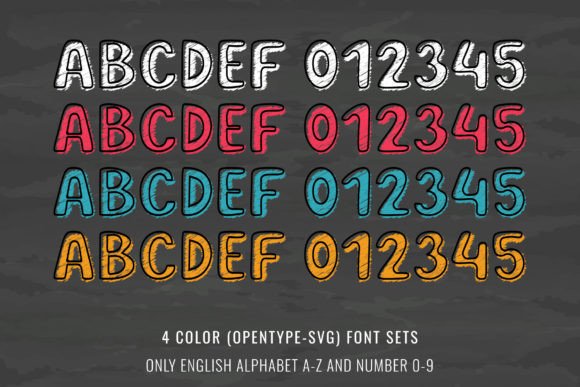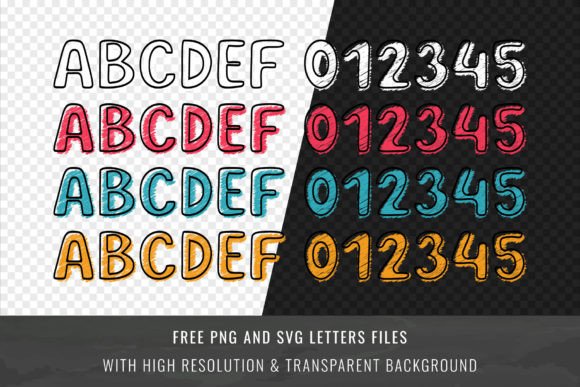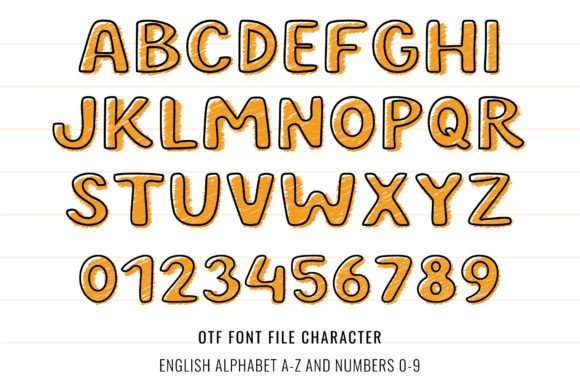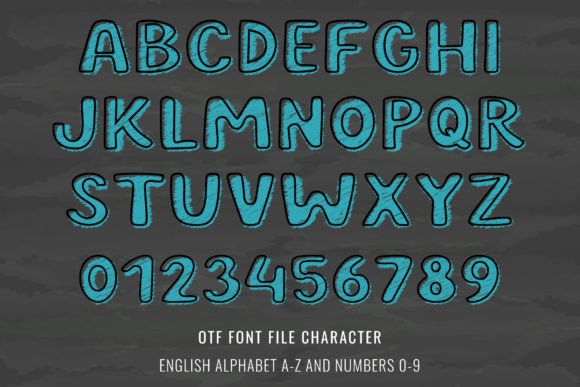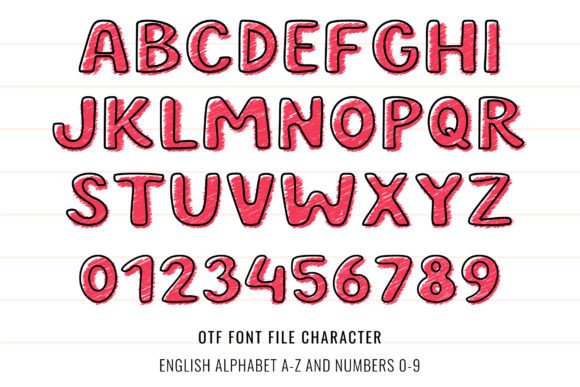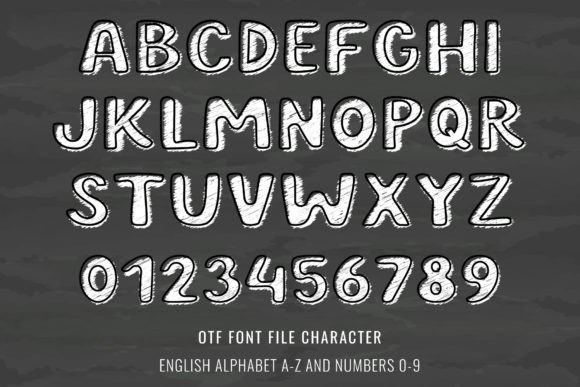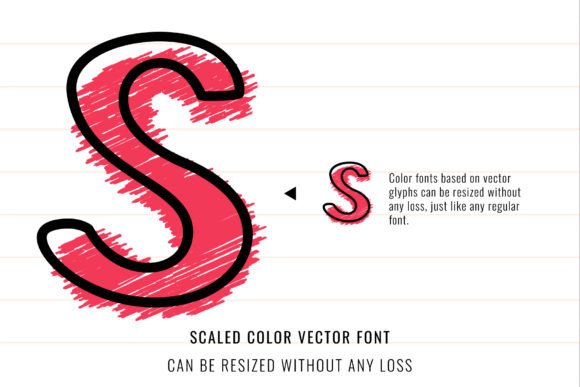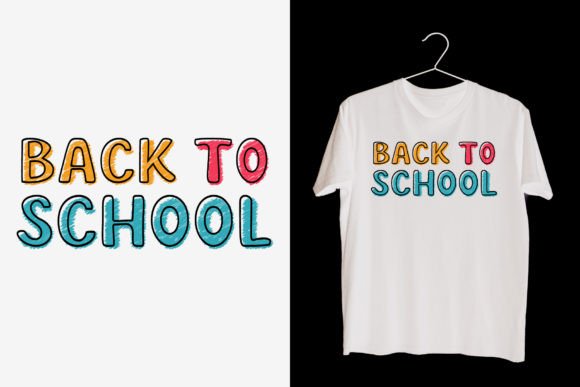
Back to School Font
Introducing “Back to School Color Font” – is a fun and playful color font. It’s the perfect font for school-themed projects. It works great for creating cool designs that scream for attention. It’s ideal for anything ranging from t-shirts, book designs, restaurant menus, blog writing, and greeting cards to stickers, or anything that needs a casual touch. Fall in love with its incredibly cool style, and use it to create lovely designs!